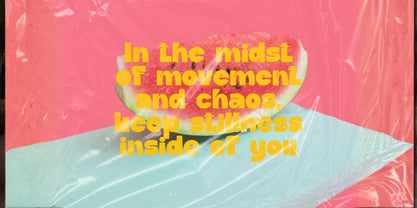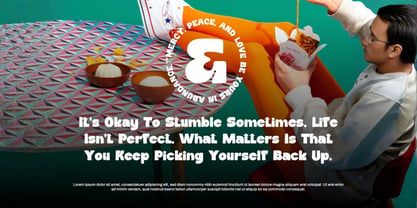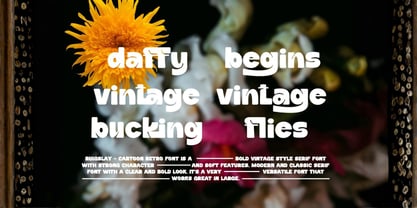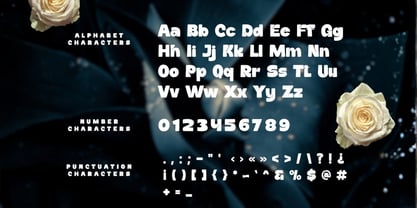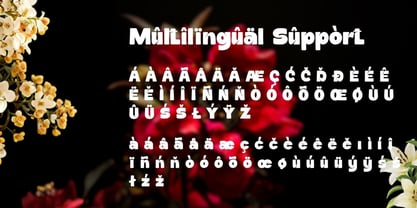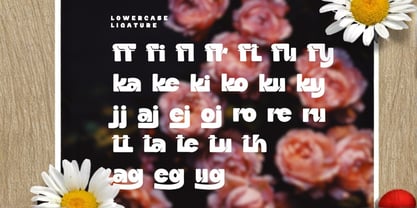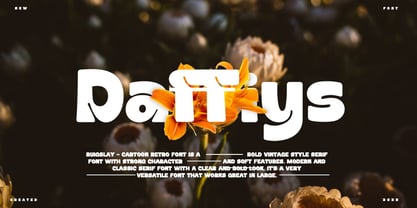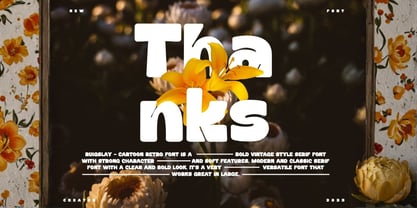
Daffiys
by Yumnacreative
The Daffiys Font Family was designed by Dhimas Habibie and published by Yumnacreative. Daffiys contains 1 styles. More about this family
Introducing Daffiys - Cartoon Retro Font
Daffiys - Cartoon Retro Font is a Bold vintage style serif font with strong character and soft features. modern and classic serif font with a clear and bold look. It’s a very versatile font that works great in large.
Daffiys was built with stylistic Alternate and Ligature makes your project will be awesome! Perfect for editorial projects, Logo design, clothing branding, product packaging, magazine headers, or simply as a stylish text overlay to any background image.
Designers: Dhimas Habibie
Foundry: Yumnacreative